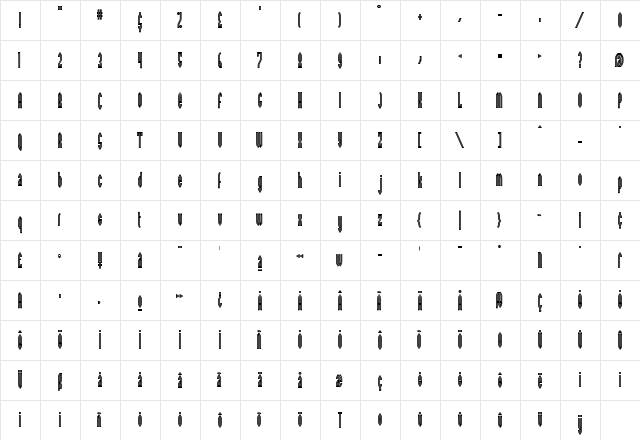
Bromide Bold
Design Context for Bromide Typeface
Bromide offers clean, dependable letterforms without strong stylistic allegiance, making it a practical choice for designers who need flexibility. Its bold stroke weight gives it real presence on the page.